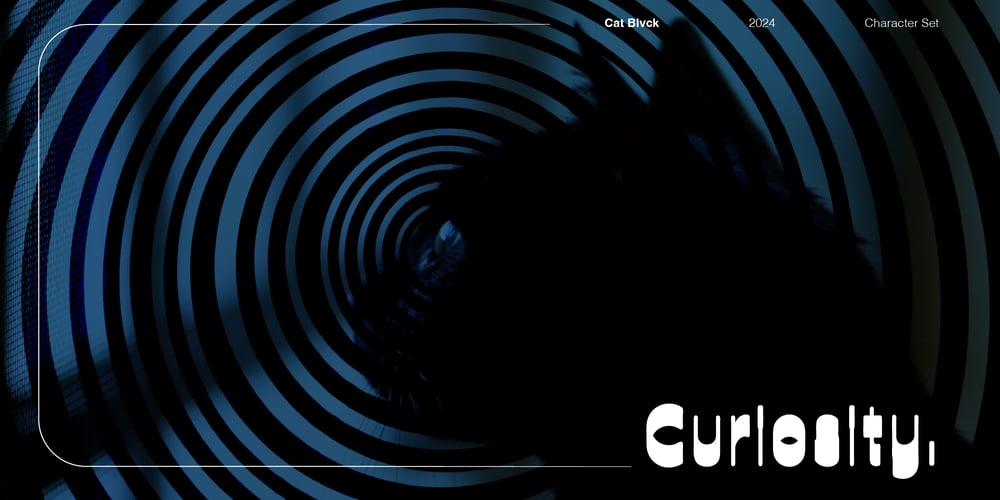
Cat Blvck Font Family was designed by Edward Marshall and published by The Design Speak. Cat Blvck contains 1 styles and family package options. Another experimental typeface by Marshall. This typeface is almost difficult to read but that is almost the point. It features words or almost enclosed circles as well as thick strokes around the letter forms. The font has an mysterious edge while providing shock to whomever views it.